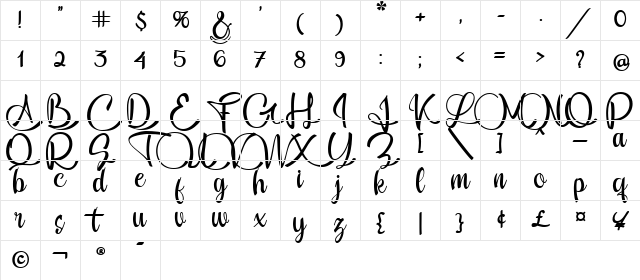
Feisty Regular
Foundry: Sadat Fauzi
Designer: Sadat Fauzi
Complete Feisty Regular glyph index. Displaying only characters natively supported by Feisty Regular font.
Design Context for Feisty
Feisty is a composed and adaptable typeface that performs quietly and consistently across a wide range of design contexts.